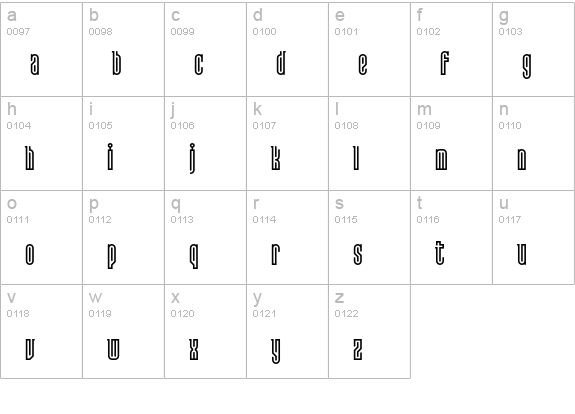
Lusta-FortySerif font is a stunning display typeface that exudes elegance and sophistication. With its sleek serifs and balanced proportions, this font is sure to make a statement in any design project. The graceful curves and sharp edges of Lusta-FortySerif create a harmonious blend of classic and modern elements, making it suitable for a wide range of applications. Best of all, Lusta-FortySerif is available for free download at FontsMarket.com. Whether you're working on a branding project, editorial design, or any other creative endeavor, this font will add a touch of refinement and style to your work. Don't miss out on the opportunity to enhance your designs with the timeless beauty of Lusta-FortySerif font – download it for free today!